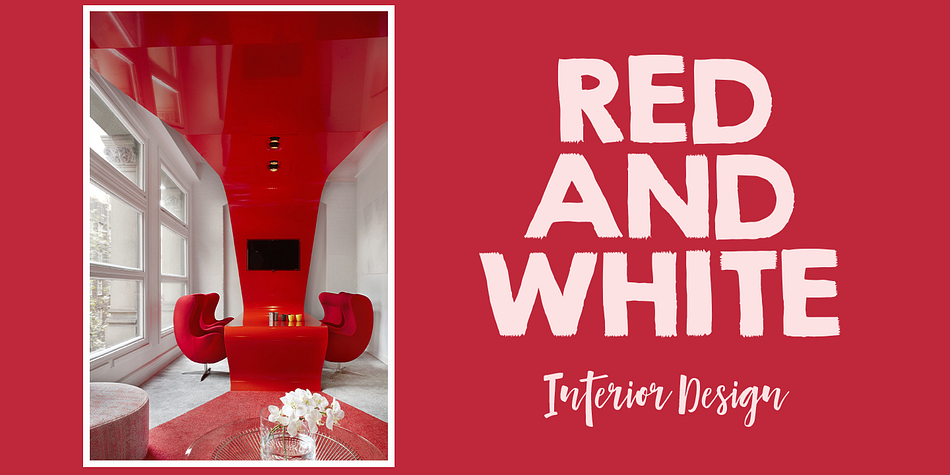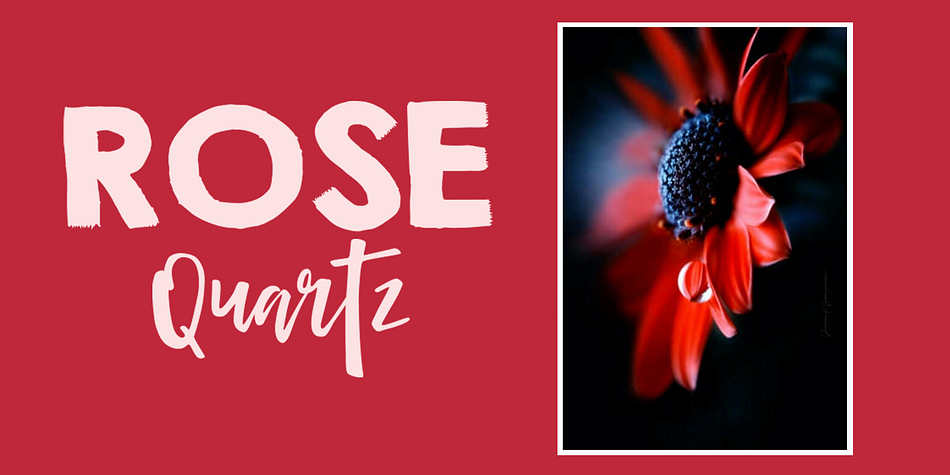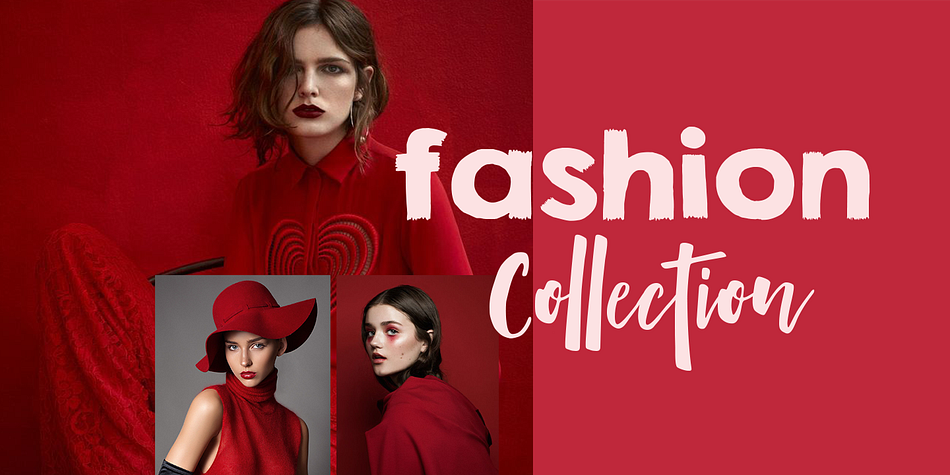
Monten
Monten is a display sans font family published by Gatype.
Monten is a script font whose letters are designed a bit bold, almost similar to the Sans Serif font. A great choice if you want to add a retro look to your designs. Perfect for titles, logos, or anything your creative brain can think of. This customizable font will look great on a variety of design ideas such as Christmas themes, valentines, posters, invitations, weddings, branding projects, social media posts, magazines, book covers and more! This will add a fun and friendly touch to any of your projects! This font is PUA encoded which means you can access all the glyphs and sweeps easily.